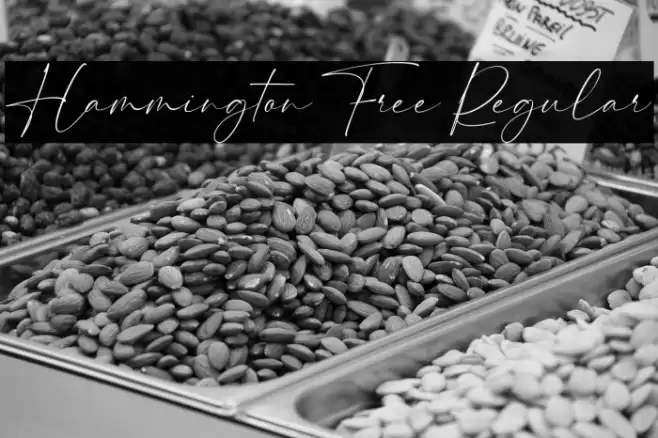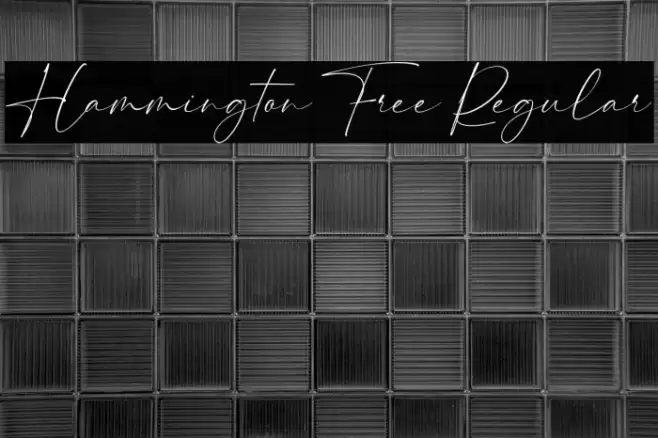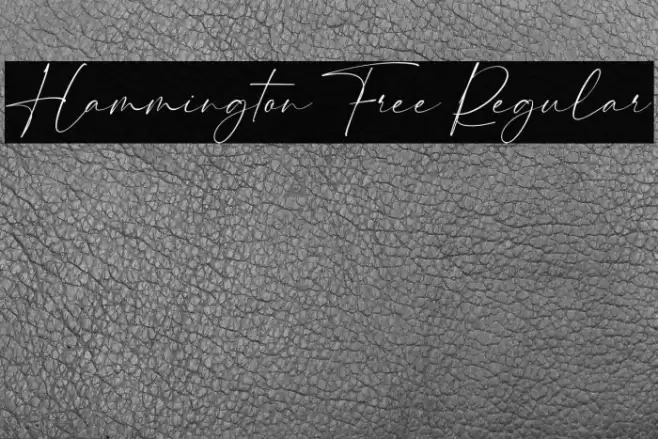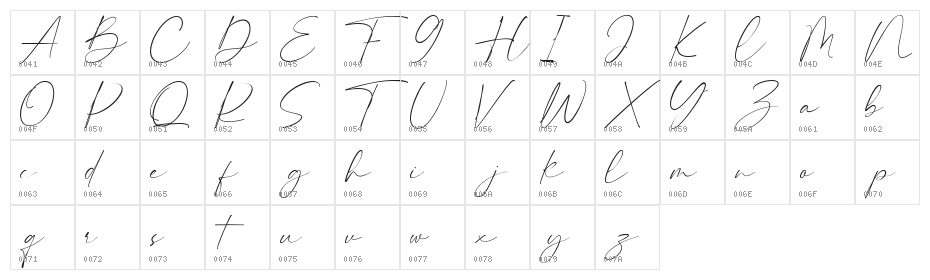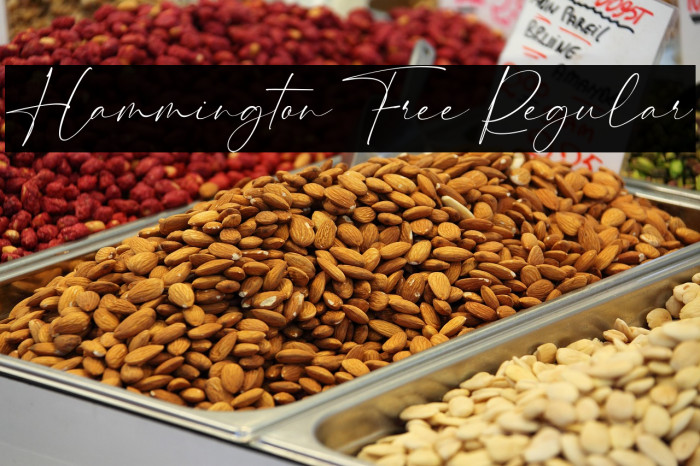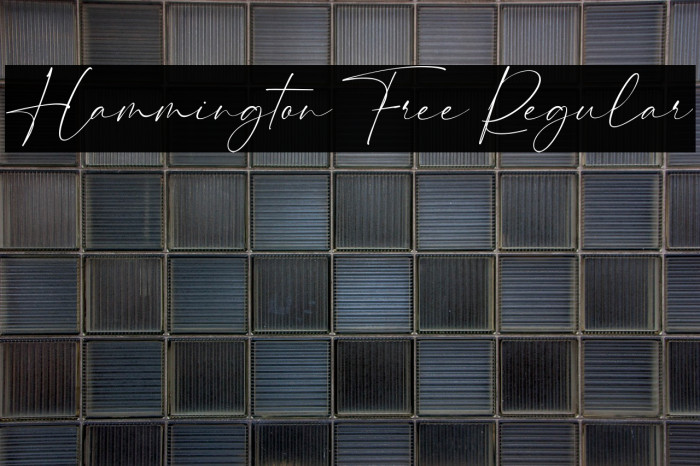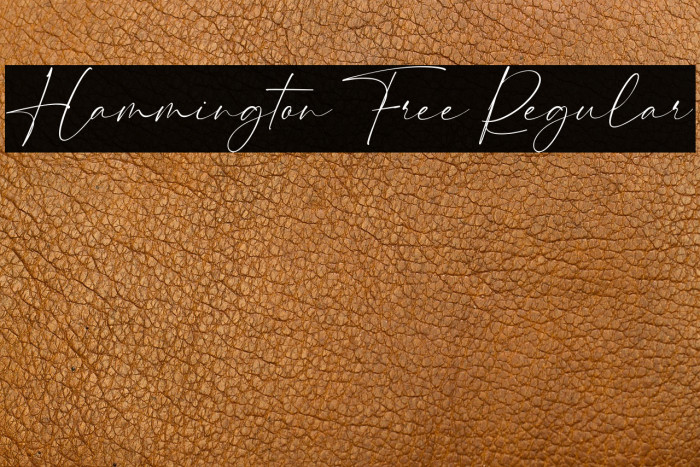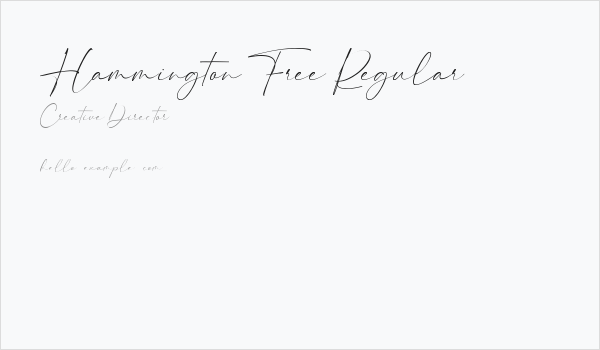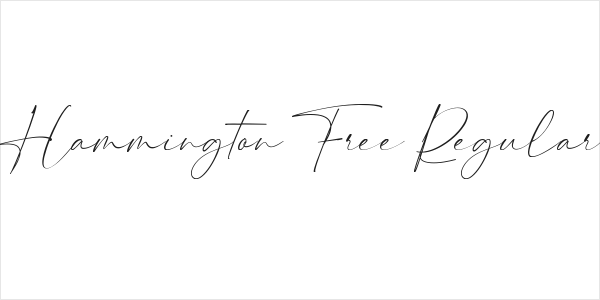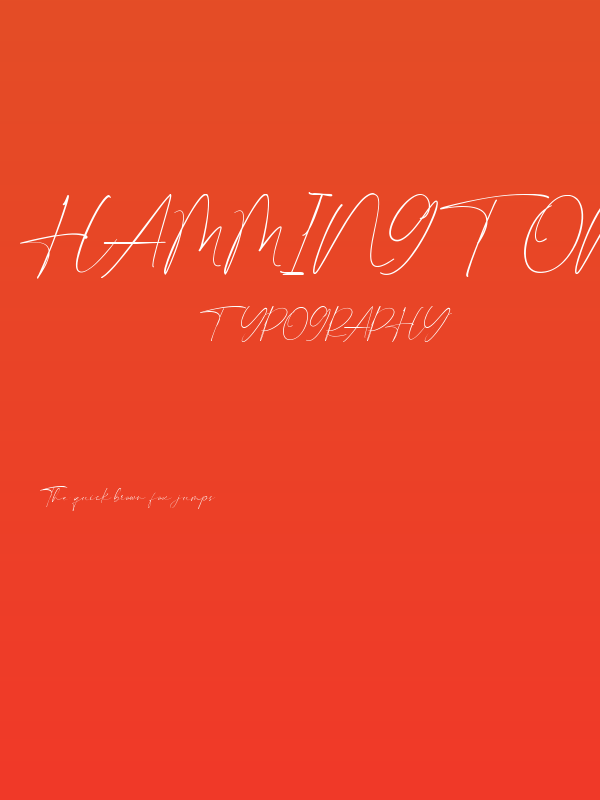
Hammington Free Regular Font
Hammington Free Regular Description
This font exhibits a graceful and fluid script style, characterized by its elegant, flowing lines and delicate curves. The letters are interconnected, creating a seamless and continuous appearance that mimics natural handwriting. The strokes are thin and consistent, lending a light and airy feel to the text. The uppercase letters are slightly more structured, while the lowercase letters maintain a casual, handwritten look. This font is ideal for projects that require a personal touch or a sophisticated, yet approachable aesthetic.
A graceful and fluid script font with elegant, flowing lines from Regular fonts.
- Font: Hammington Free Regular
- Proposed Projects: Ideal for wedding invitations, personal branding, greeting cards, and elegant stationery.
- Weight: Light
- Overall Style: Elegant, Handwritten
- Use Case: Logos, Invitations, Personal Branding